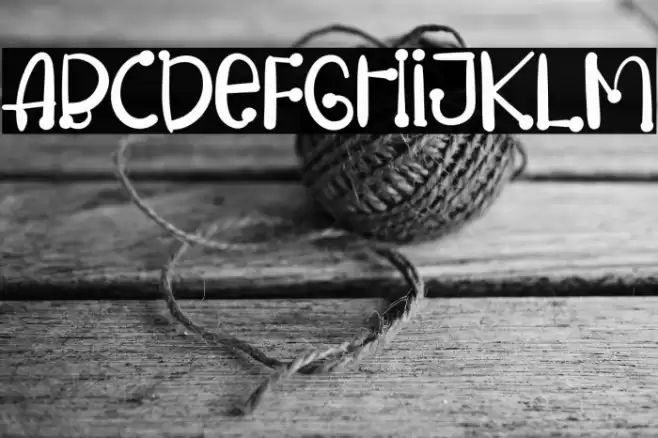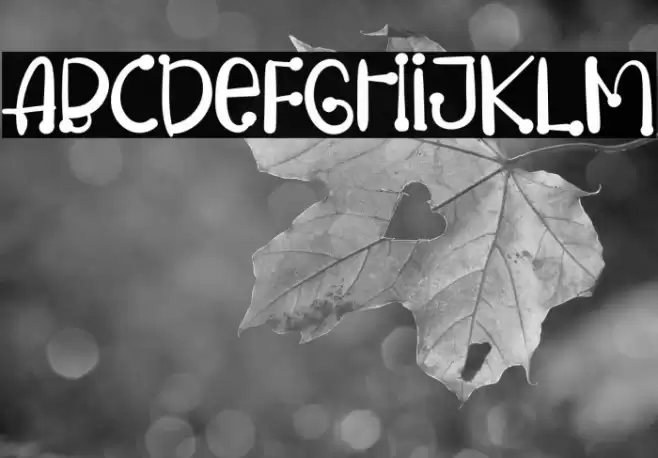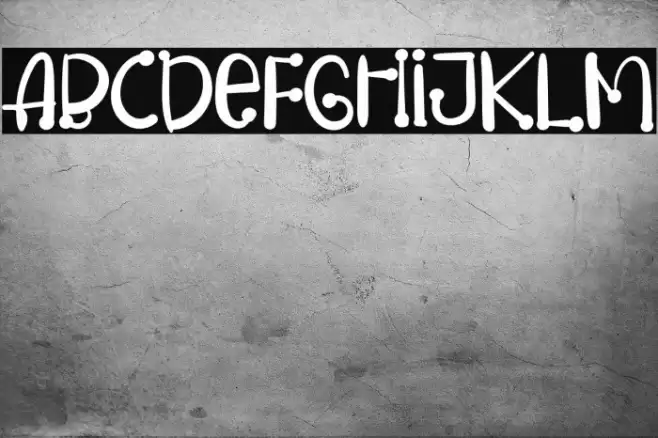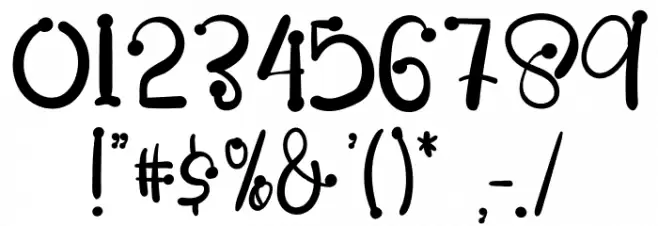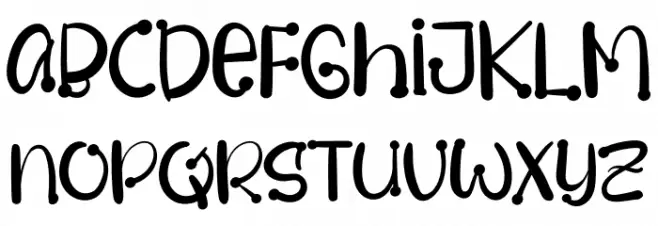
Dream Moment Font
Dream Moment Description
This playful and whimsical font features rounded, bubbly characters with a unique, hand-drawn appearance. Each letter is adorned with small, circular embellishments that add a touch of charm and creativity. The font maintains a consistent thickness throughout, giving it a bold and friendly look. Its distinct style is perfect for projects that require a fun and informal tone. The numbers and special characters follow the same design principles, ensuring a cohesive and harmonious appearance across all elements.
A playful, bubbly font with rounded characters and whimsical embellishments from Uncategorized fonts.
- Font: Dream Moment
- Proposed Projects: Ideal for children's books, playful branding, party invitations, and creative posters.
- Overall Style: Whimsical, Playful
- Use Case: Headlines, Logos, Invitations
Dream Moment UPPERCASE
Dream Moment LOWERCASE
Dream Moment OTHER CHARS